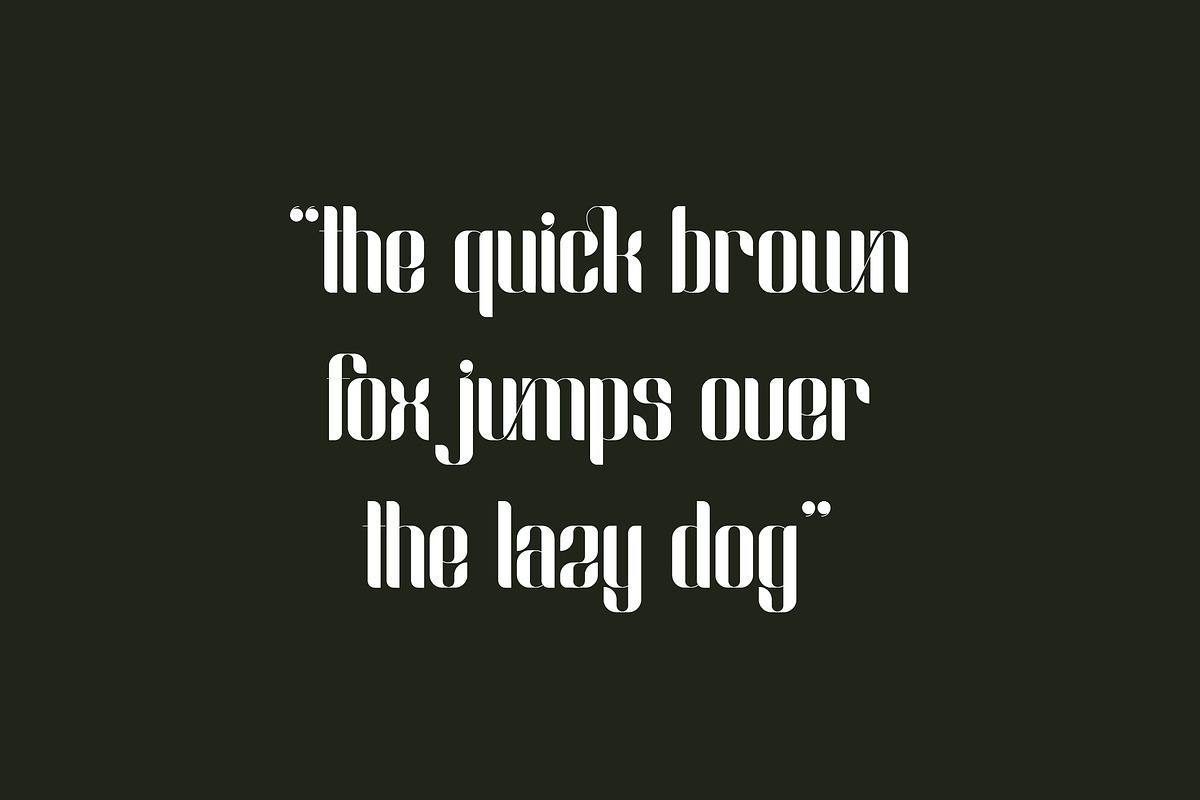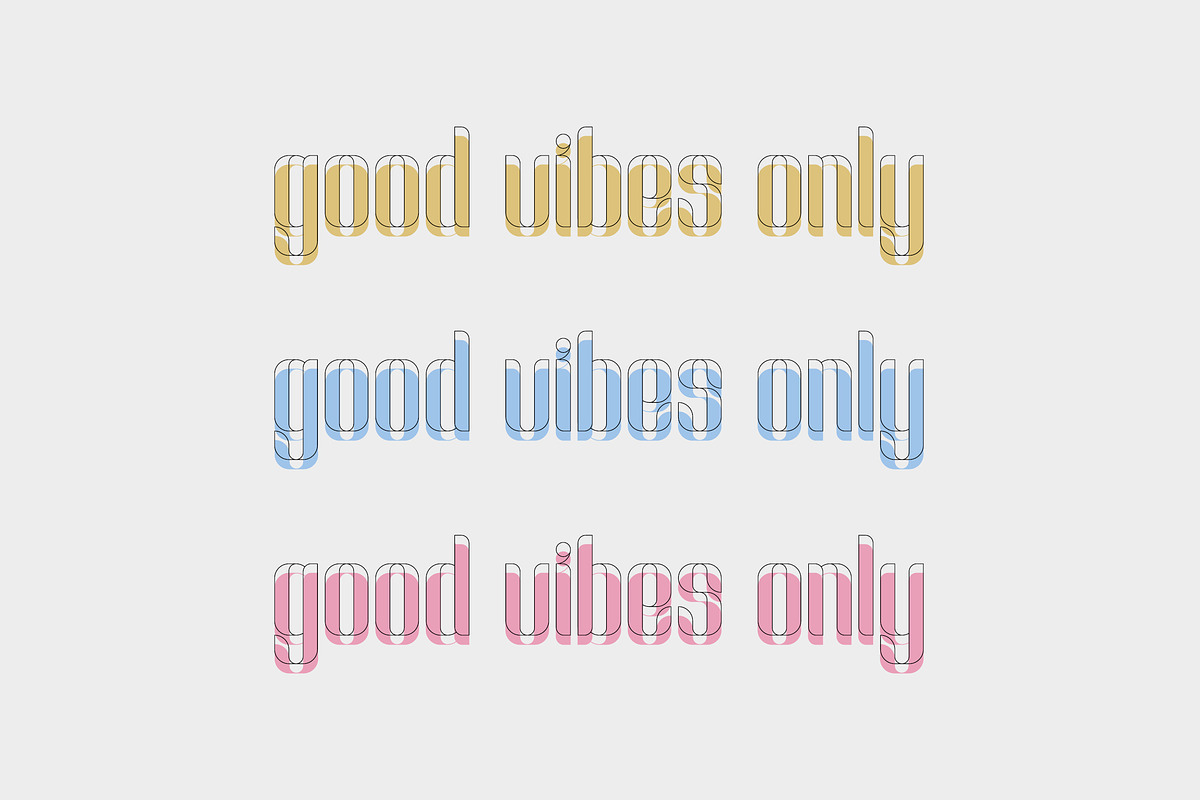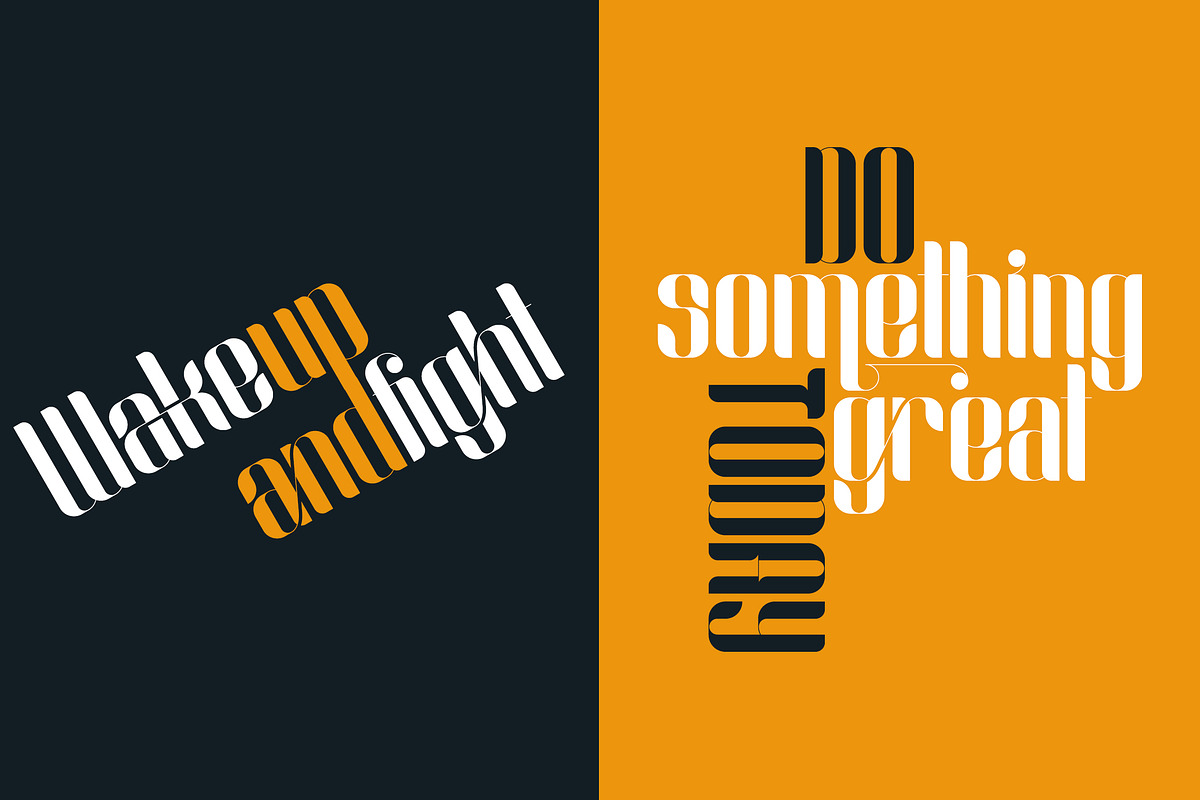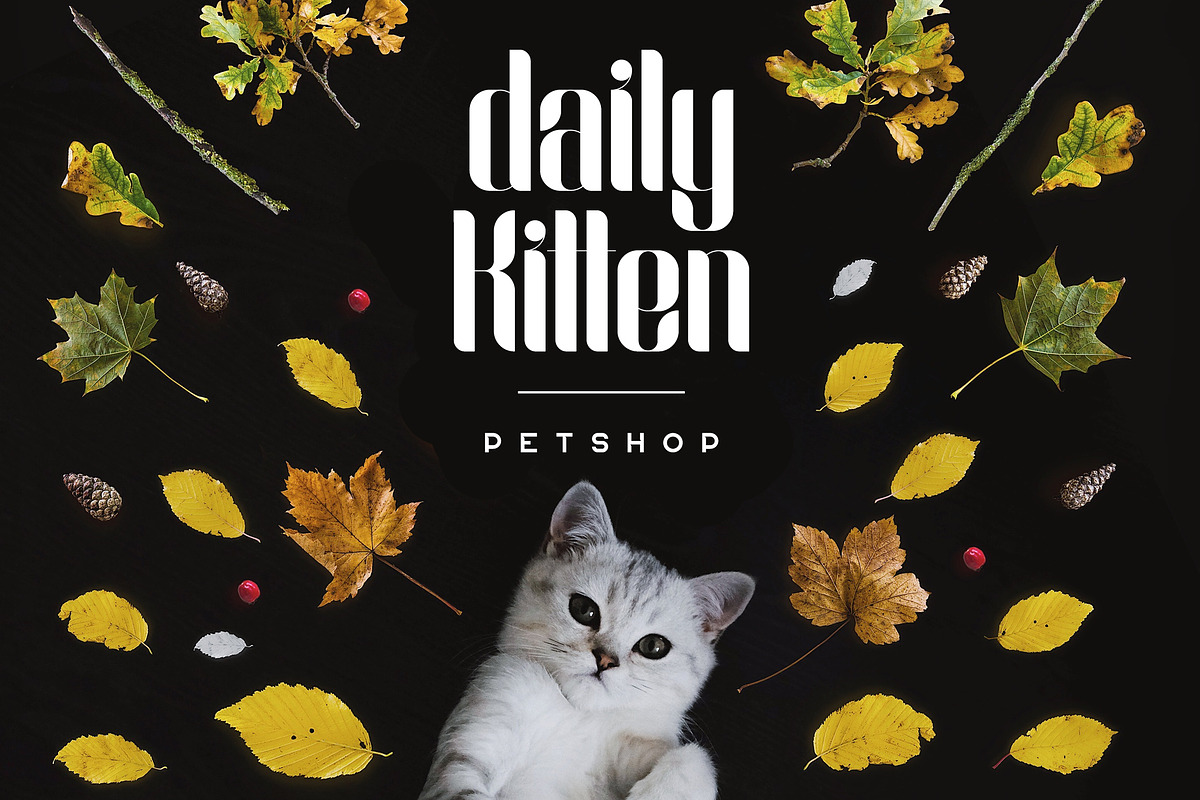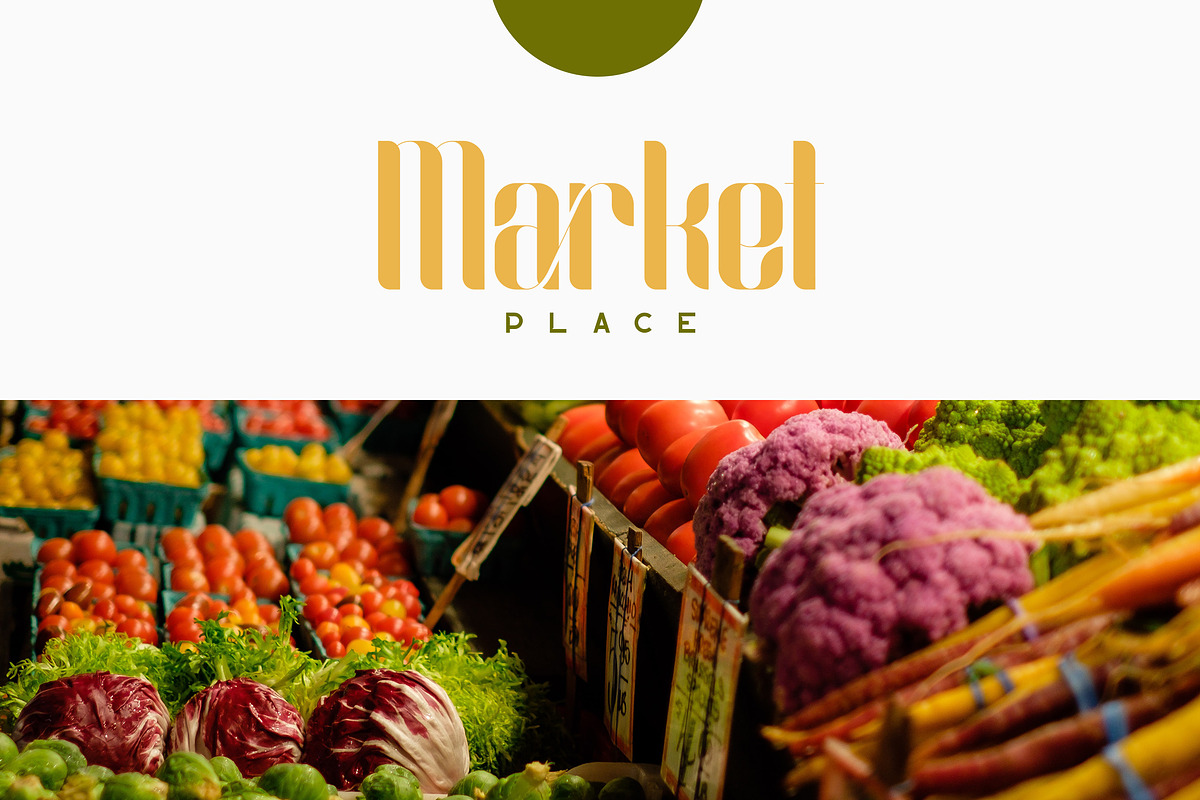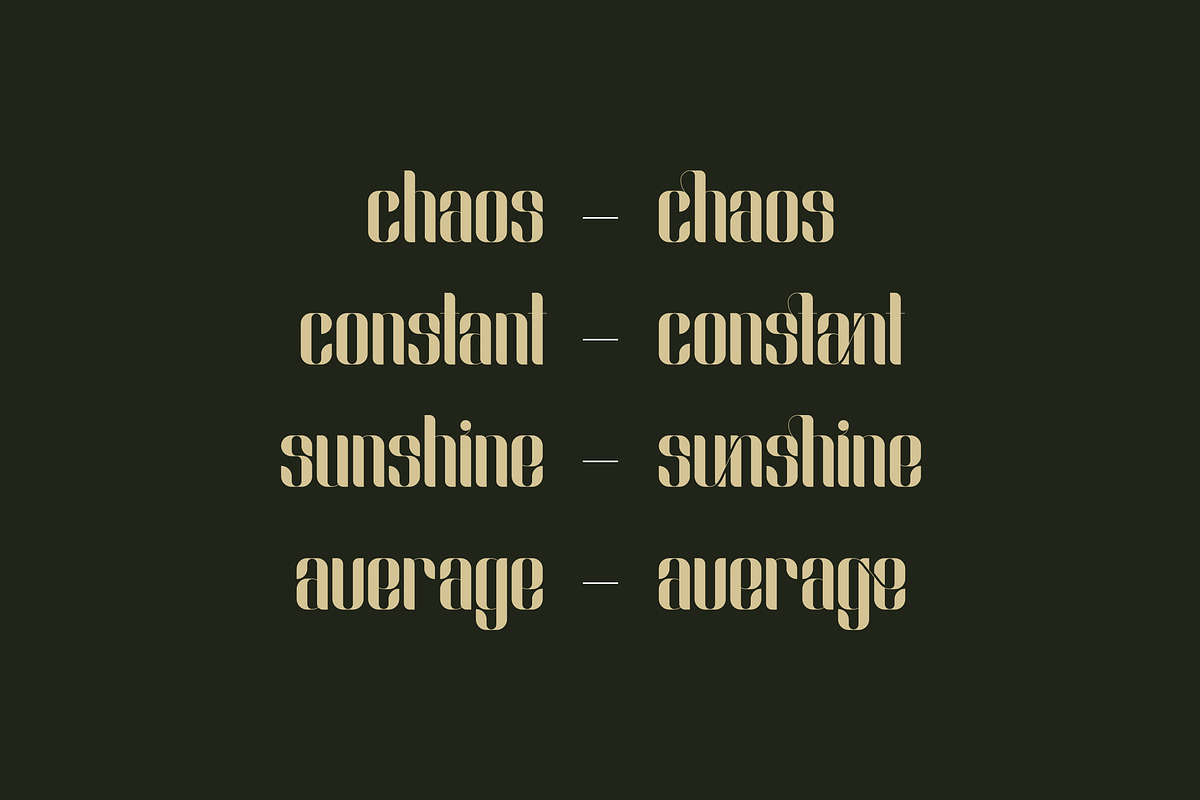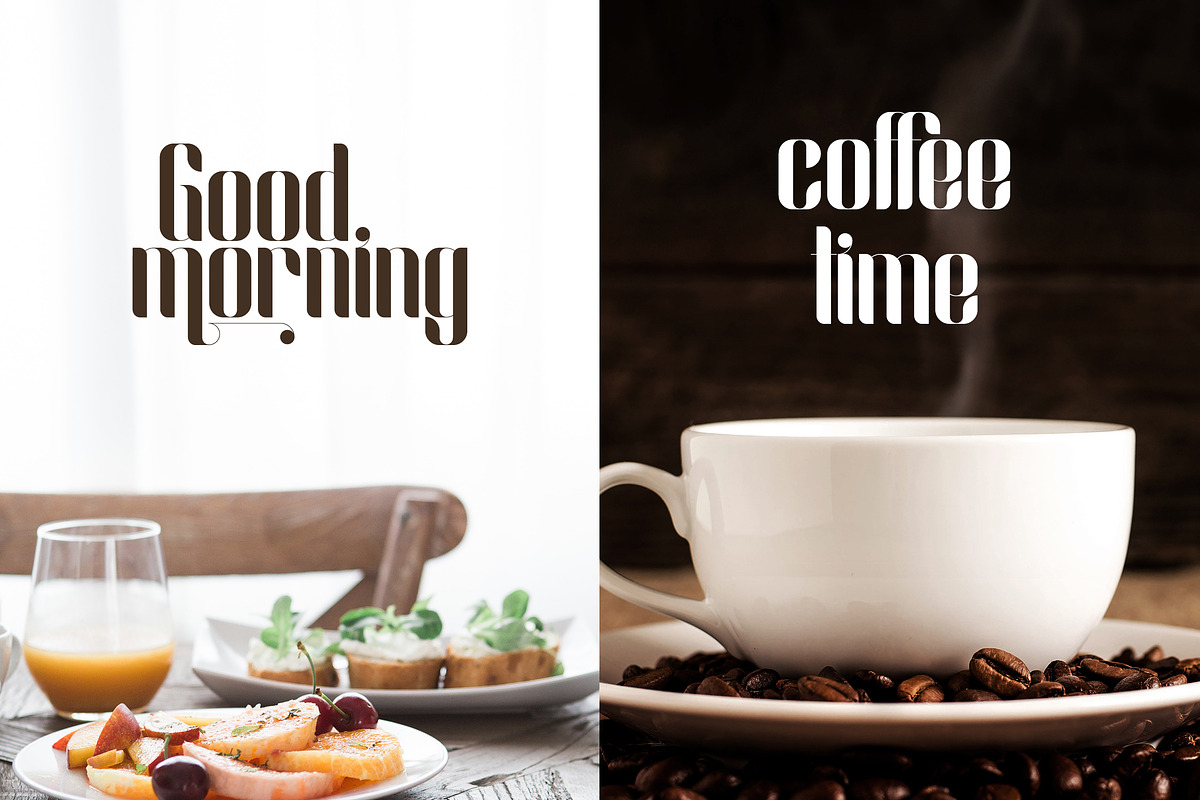
Slang - Ligature Font
Introducing Slang - Ligature Font ( Regular and Outline )
Slang is bold, clean font with regular and outline versions loaded with alternate and ligature glyphs. It's a very versatile font that works great in large and small sizes.
Slang is perfect for branding projects, home-ware designs, product packaging, magazine headers - or simply as a stylish text overlay to any background image.